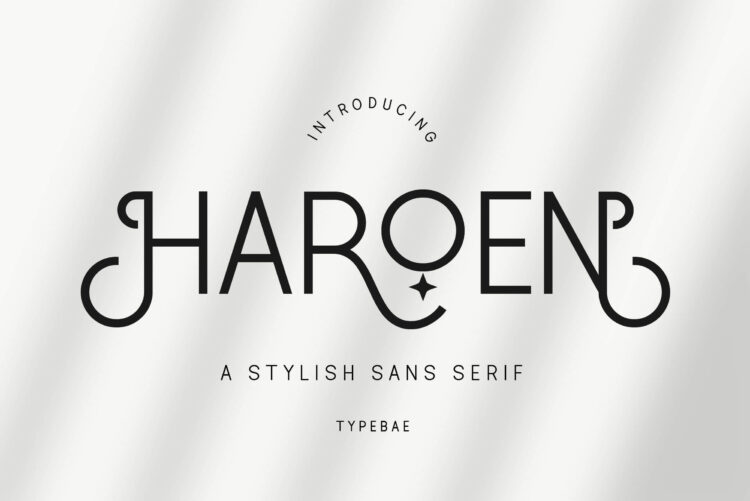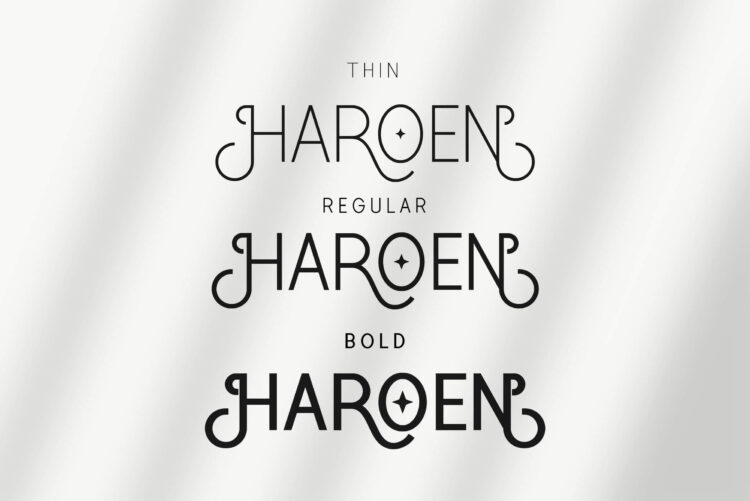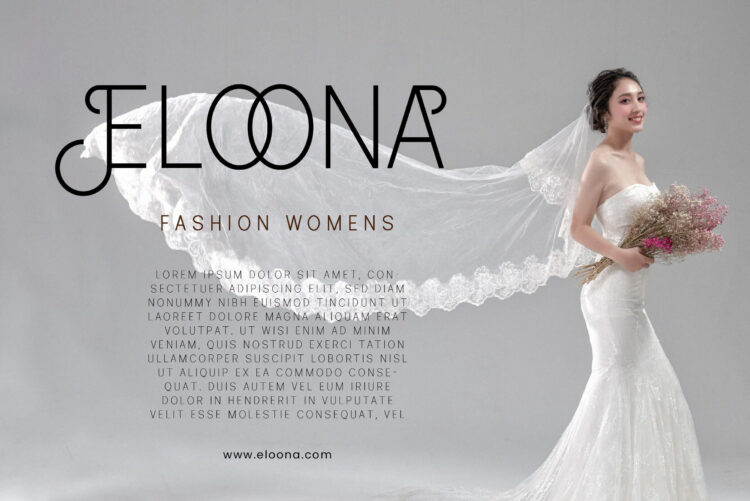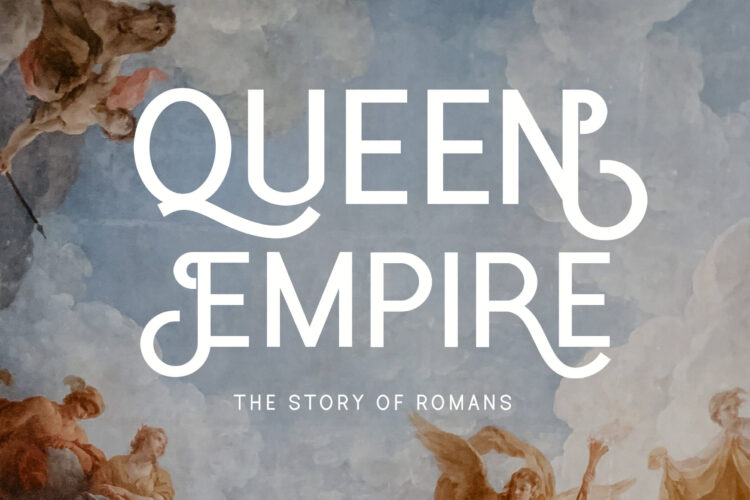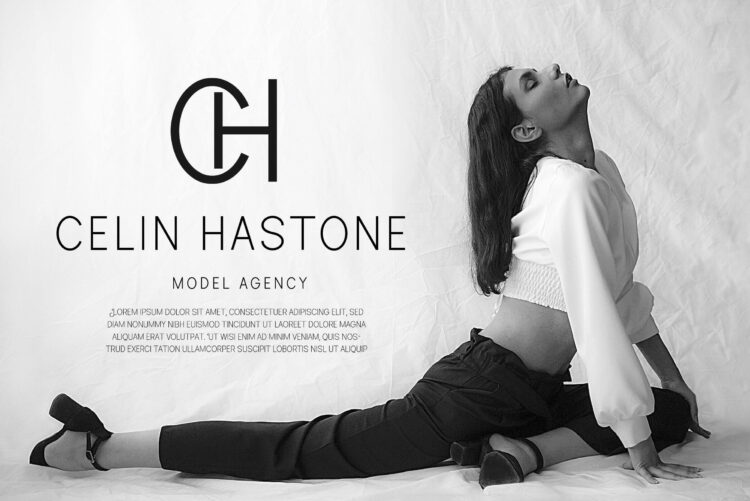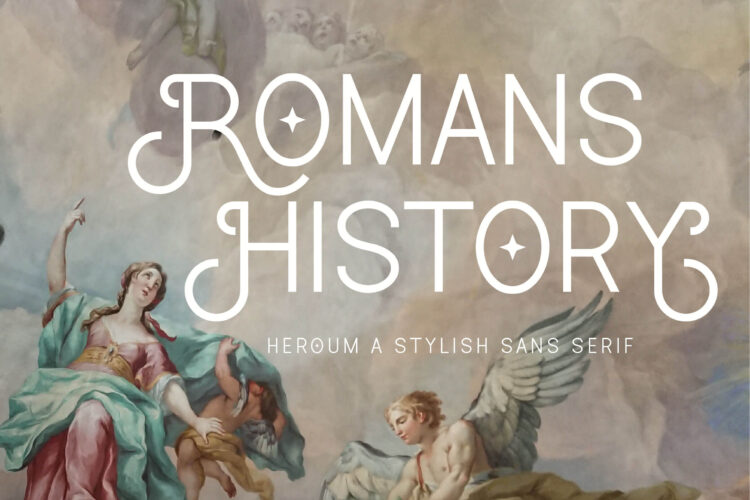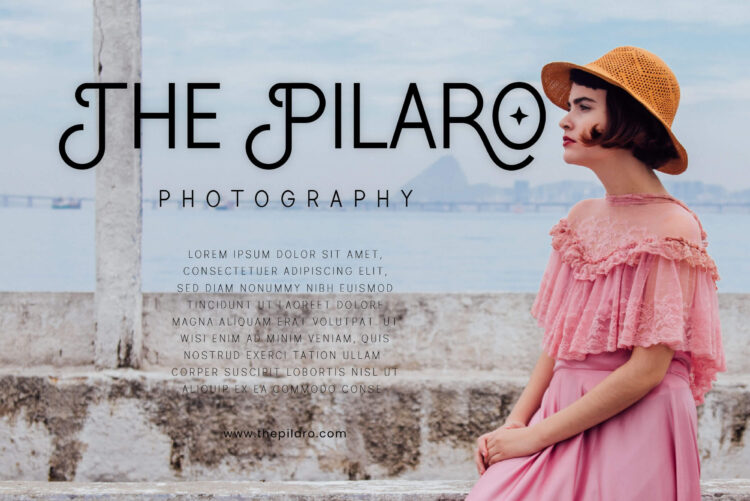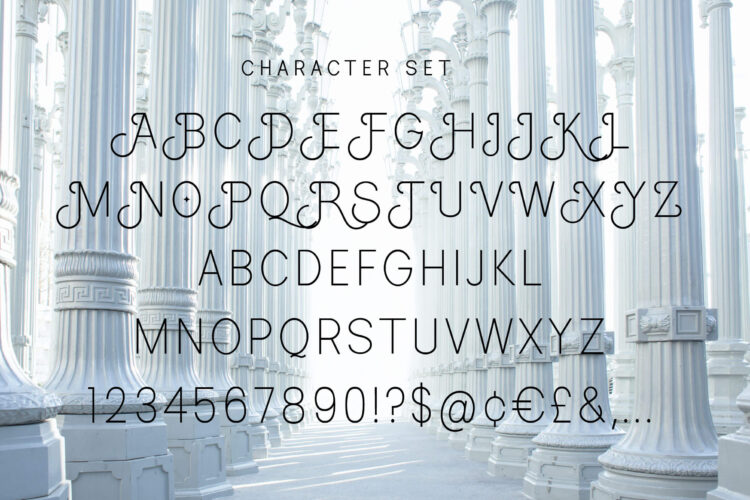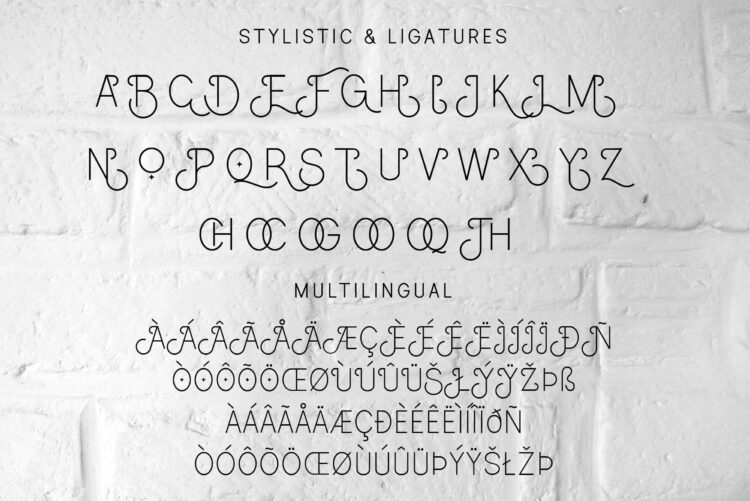
Stylish Sans Font
Haroen is stylish and beautiful sans serif font. It will look perfect in photography designs, watermarks, social media posts, advertisements, logos, branding, and various other projects.
• Uppercase & Lowercase
• Numbers & Punctuation
• Ligature & Alternate
• Multilingual Support
Haroen – Stylish Sans Font